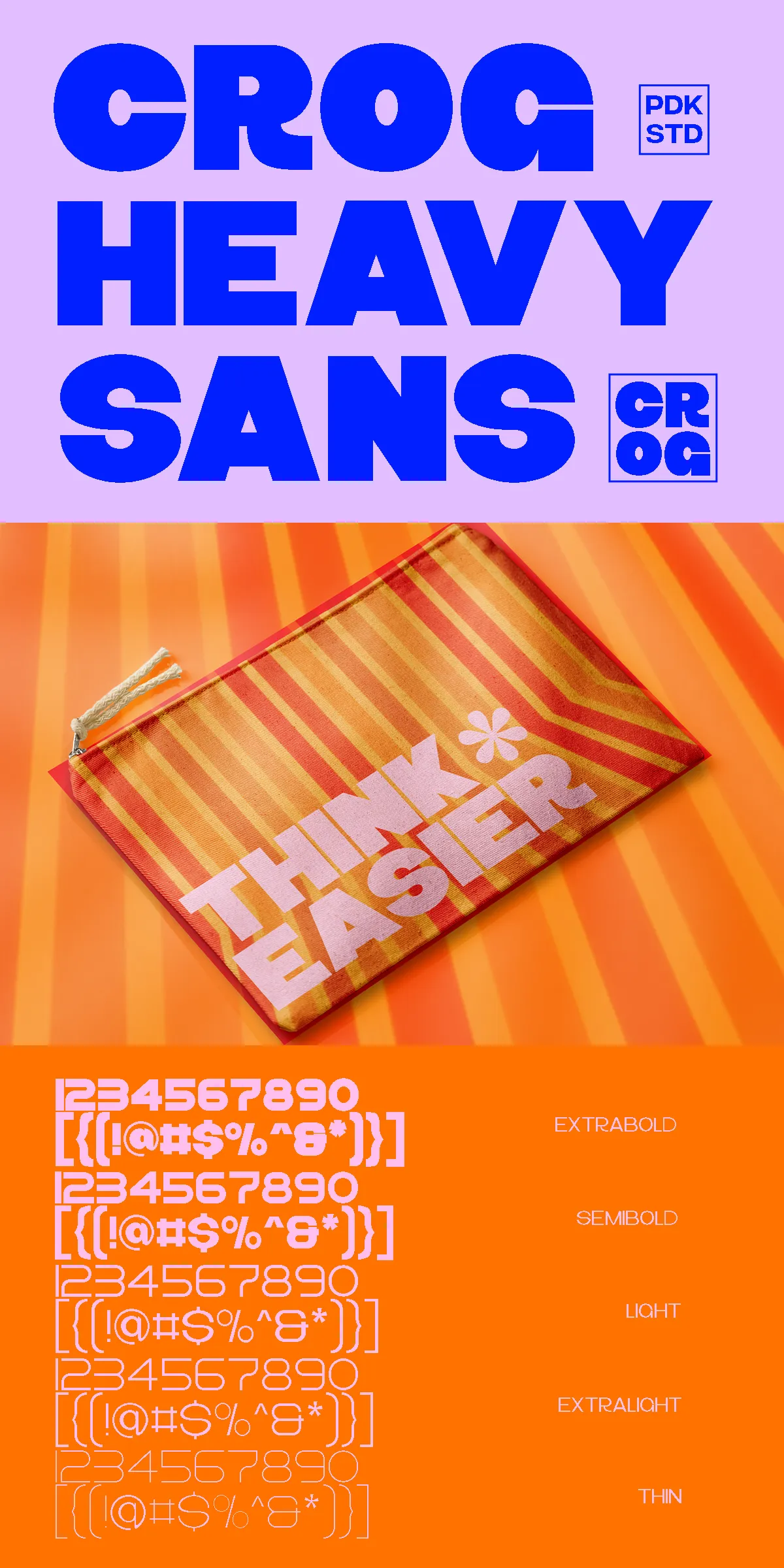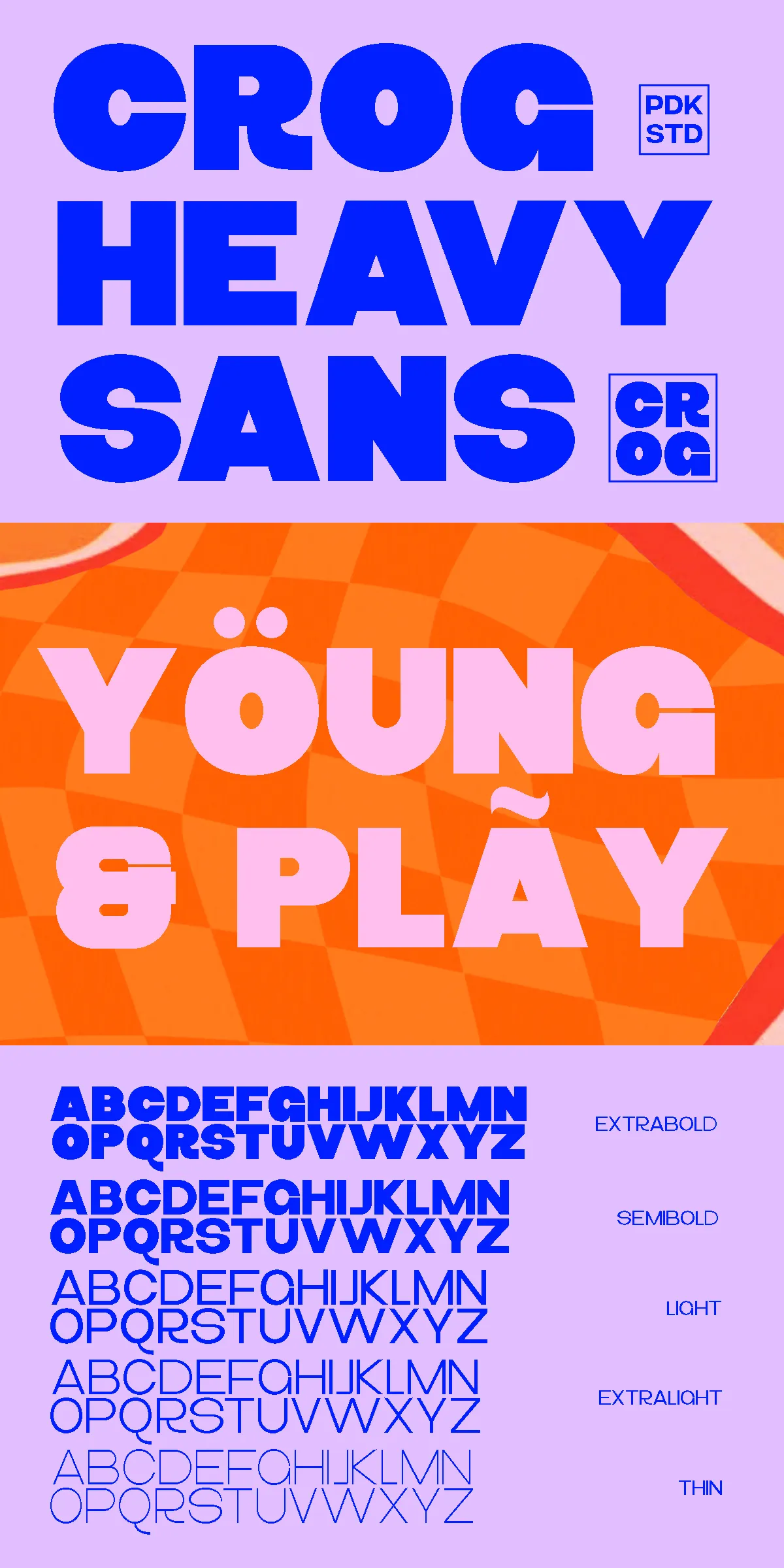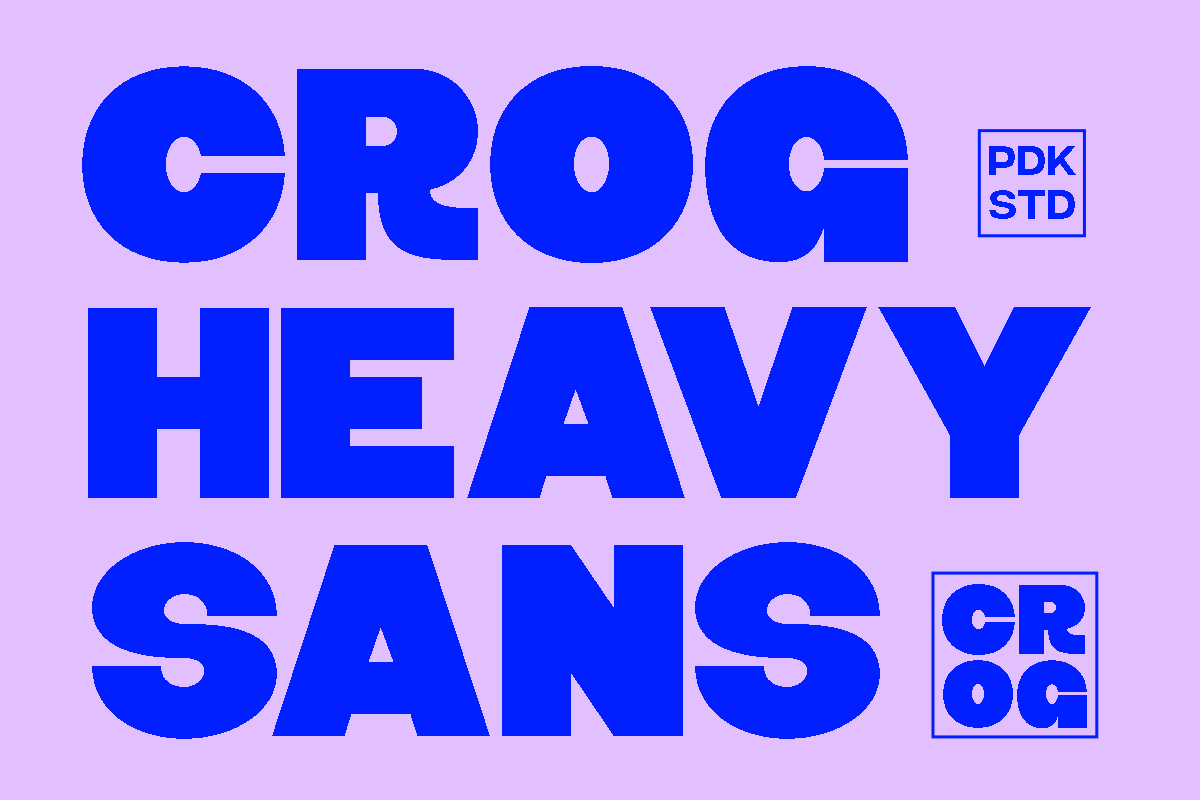
Crog – Chunky Heavy Sans
Meet Crog — the big, bold, and beautifully confident sans-serif font that doesn’t just grab attention — it demands it. With nine powerful weight variations (Thin, Extra Light, Light, Regular, Medium, Semi Bold, Bold, Extra Bold, and Black), Crog is built for impact, personality, and creative freedom. Whether you’re designing a streetwear label, a music poster, a social media campaign, or a brand logo, Crog is the typeface that says, “I’m here, and I’m proud.”
Why Crog Stands Out: Heavy, Funky, and Full of Heart
Crog isn’t just heavy — it’s deliberately playful. It embraces soft, rounded corners that give it a friendly, huggable vibe. Unlike harsh, aggressive typefaces, Crog’s chunky form feels inviting, not overwhelming. It’s loud — yes — but never shouty. It punches above its weight with confidence, charm, and character, making it the perfect choice when you want your message to be felt as much as it is read.
Designed with generous letter spacing and expansive stroke thickness, Crog fills space beautifully. This makes it ideal for image-fill effects, where the text becomes part of the visual landscape. Whether layered over a photo, used as a background element, or set against a solid color, Crog occupies space with purpose — always legible, always expressive.
And for the ultimate flexibility, Crog is a full Variable Font — meaning you can adjust weight, width, and other parameters dynamically within supported software. No need to download 9 separate files. One file, infinite possibilities.
Where Crog Shines: High-Impact Design Applications
Crog is more than a font — it’s a creative catalyst. Here’s where it truly comes alive:
Top Use Cases for Crog:
• Logo & Branding — Create memorable brand identities with bold, distinctive typography.
• Music & Entertainment Posters — Use for concerts, festivals, albums, and podcasts where energy and attitude matter.
• Social Media & Ads — Stand out on Instagram, Facebook, TikTok, and Pinterest with text that feels authentic and dynamic.
• App & Web UI Headers — Add a playful but professional edge to app titles and landing pages.
• Vinyl & Craft Projects — Perfect for Cricut, Silhouette, or heat transfers — cut with bold clarity.
• Print & Packaging — Use on labels, boxes, and brochures to grab attention on the shelf.
Design with Confidence — Crog Delivers on Every Front
Crog was designed by typographers who love boldness and fun. Every stroke is carefully crafted to balance weight, readability, and aesthetic appeal. It’s the font you instinctively reach for when you want to say: “This matters.”
No more settling for boring, generic sans-serifs. Crog brings energy, soul, and personality to every project. It’s not just a font — it’s a statement.